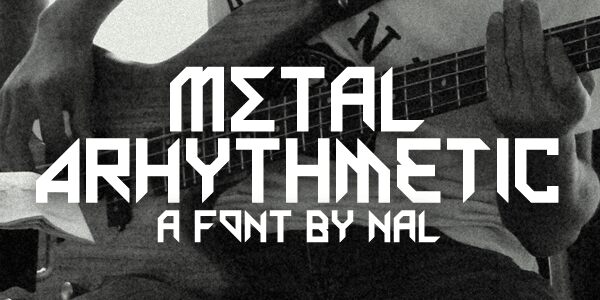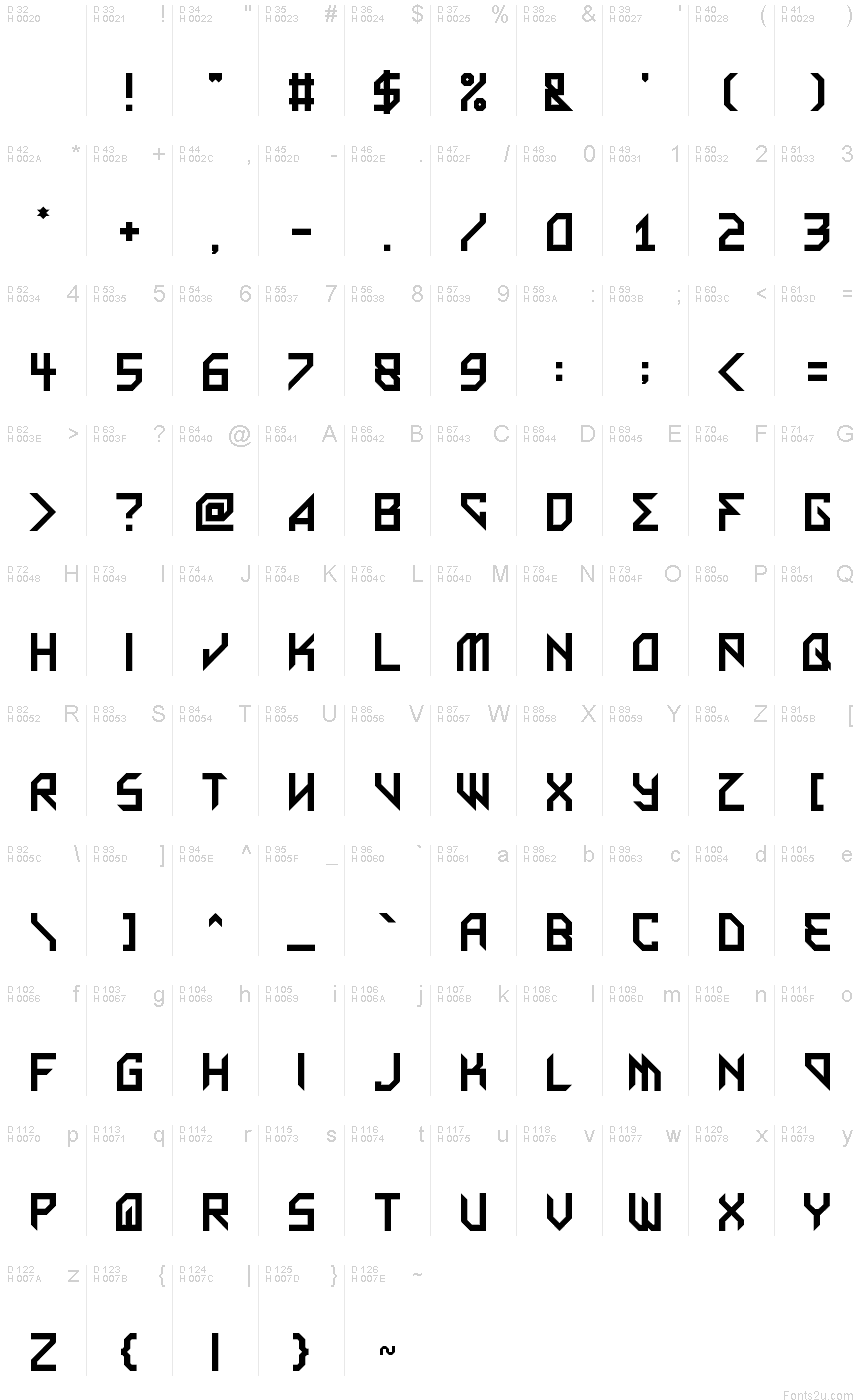
Metal Arhythmetic, designed by NAL of FontStruct, is a free futuristic display font with broad, sharply engineered capitals. Heavy verticals are cut by diagonal joints and open gaps, giving the alphabet a machine-made silhouette. Several letters resemble folded metal panels or parts of an angular circuit.
Posters for electronic music and science-fiction events are its strongest setting. The same severe geometry suits game title screens and technology packaging, where the lettering can function almost like an interface graphic. Album covers and streetwear merchandise gain an industrial identity from its notched forms.
Metal Arhythmetic
NAL